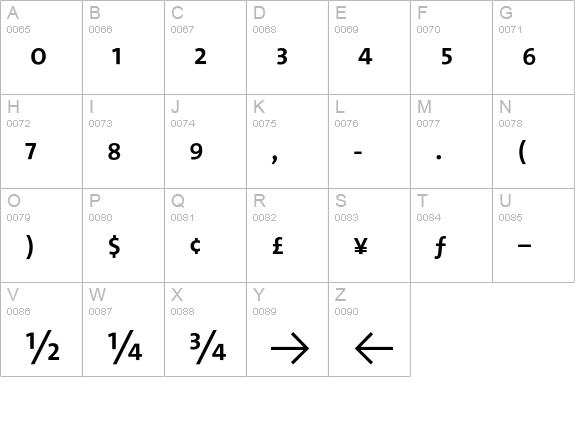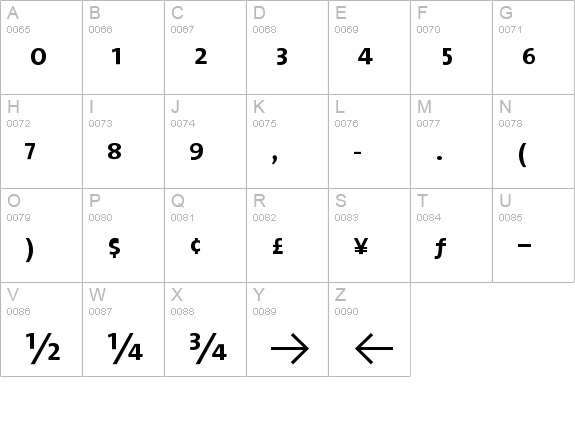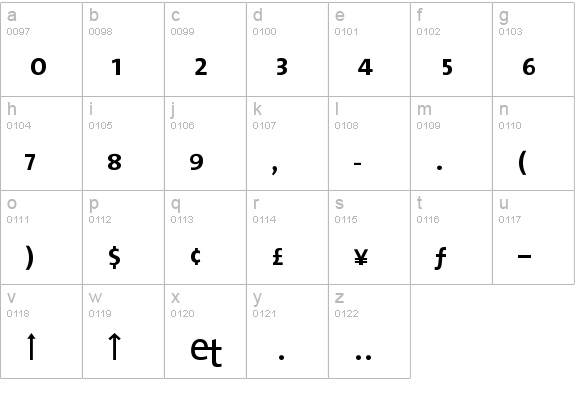
TheSans Expert Font Details
TheSans Expert font is a stunning and versatile typeface that is perfect for a wide range of design projects. With its clean and modern aesthetic, this font exudes professionalism and sophistication. It features a balanced combination of sharp, geometric shapes and smooth curves, resulting in a harmonious and legible typography. One of the most remarkable aspects of TheSans Expert font is that it is available for free download at FontsMarket.com. This means that designers and typographers can enjoy the benefits of this exceptional font without any cost. Whether you are a professional designer or a hobbyist, this font allows you to enhance your creations with a touch of elegance and refinement. TheSans Expert font offers an extensive character set, including uppercase and lowercase letters, numerals, punctuation marks, and special symbols. This comprehensive range of glyphs ensures that you have all the tools at your disposal to create captivating and visually engaging designs. Moreover, TheSans Expert font is highly versatile, making it suitable for a wide variety of design applications. From logos and branding to websites and print materials, this font seamlessly adapts to any design context, allowing you to convey your message effectively and stylishly. In addition to its visual appeal, TheSans Expert font also boasts exceptional legibility. Each letter is meticulously crafted to ensure optimal readability, even at small sizes. This attribute is particularly beneficial for projects that require clear and easy-to-read typography, such as body text in books or articles. With its combination of elegance, versatility, and free availability, TheSans Expert font stands as a remarkable choice for designers seeking a high-quality typeface. Download it for free today at FontsMarket.com and unlock a world of design possibilities. Experience the effortless beauty and professional aesthetic that TheSans Expert font brings to your projects.